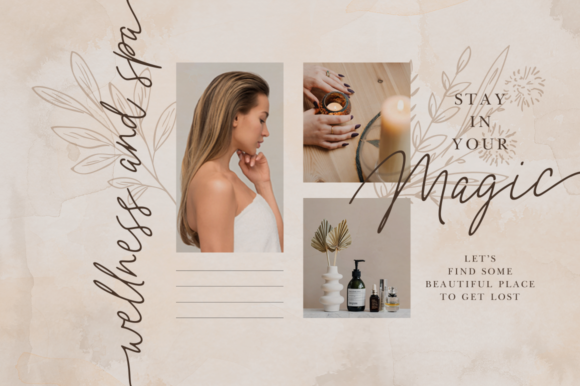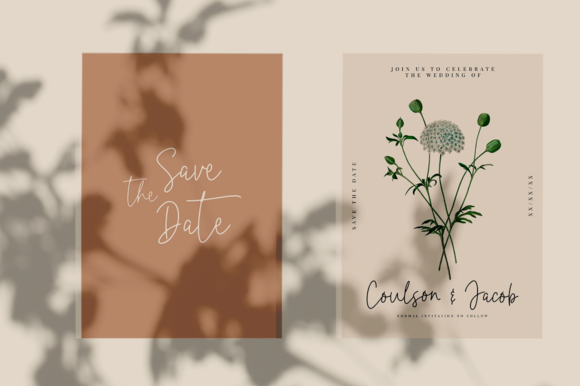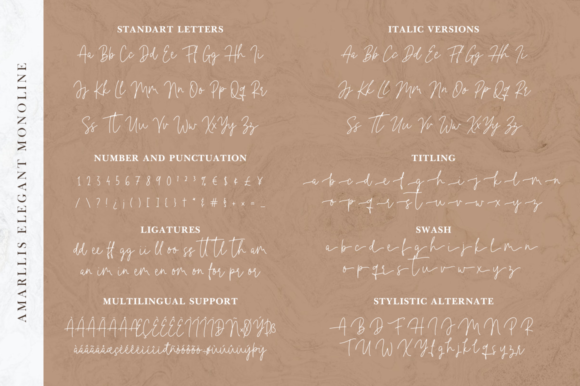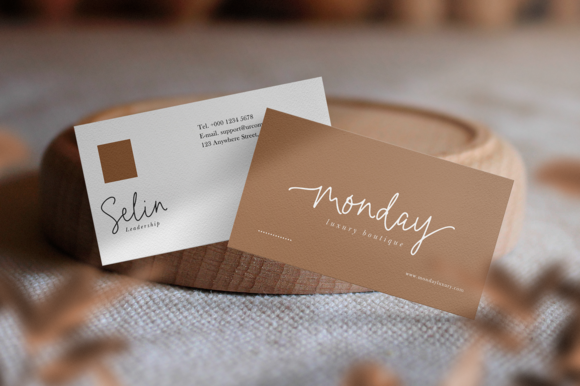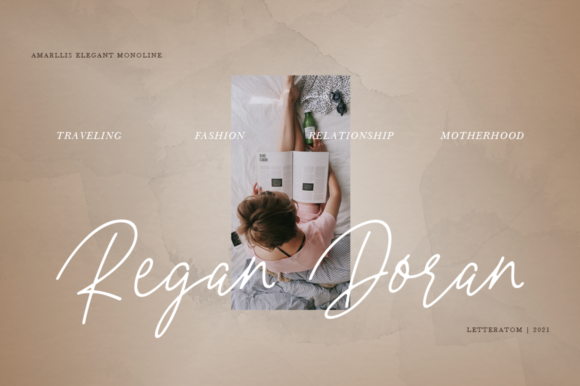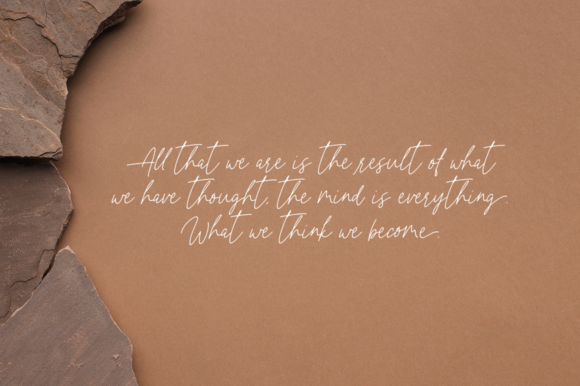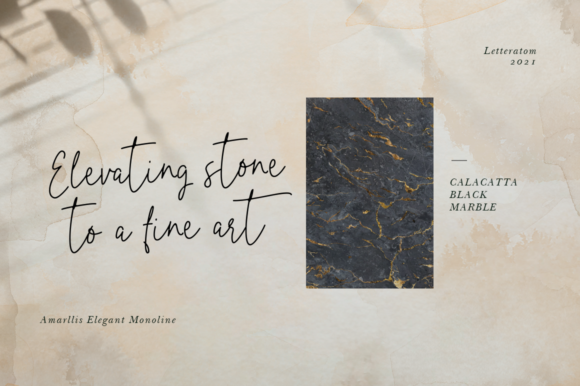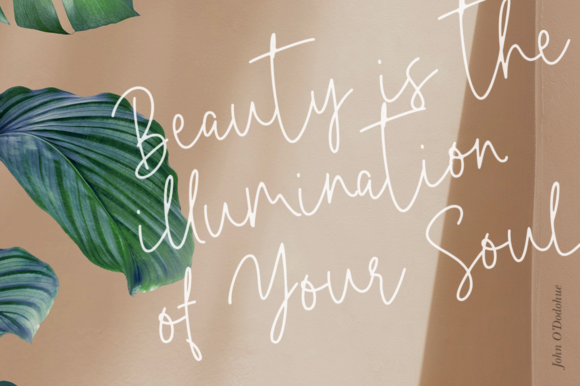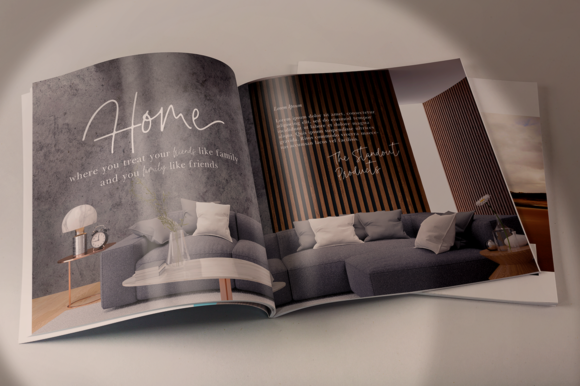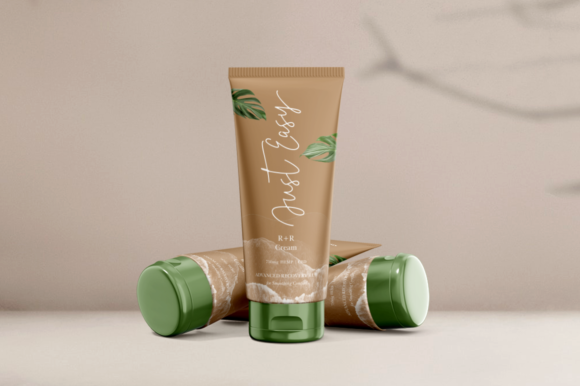
Amarllis Font
About Amarllis Font
Amarllis is a delicate and elegant handwritten font. Its distinct and well balanced letters make this font a masterpiece. This font is PUA encoded which means you can access all of the glyphs and swashes with ease!